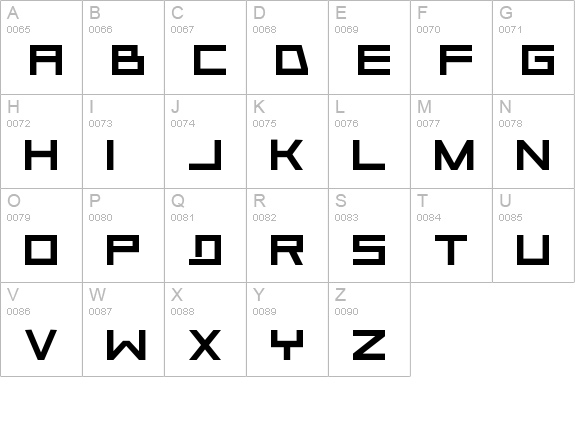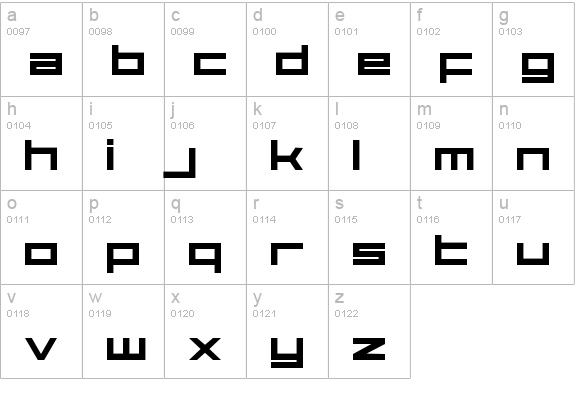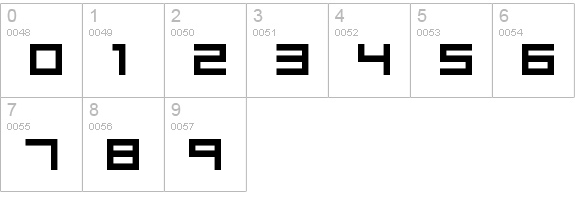
TR Aerial Font Details
TR Aerial font is a versatile and modern typeface that exudes elegance and sophistication. With its clean lines and sleek design, this font is perfect for a wide range of projects, from branding and advertising to editorial design and web graphics. The TR Aerial font comes in a variety of weights and styles, allowing you to customize your text to suit your needs. The best part? TR Aerial font is available for free download at FontsMarket.com. With just a few clicks, you can add this stunning font to your collection and elevate your design projects to the next level. Don't miss out on the opportunity to enhance your work with the TR Aerial font - download it today and let your creativity soar!